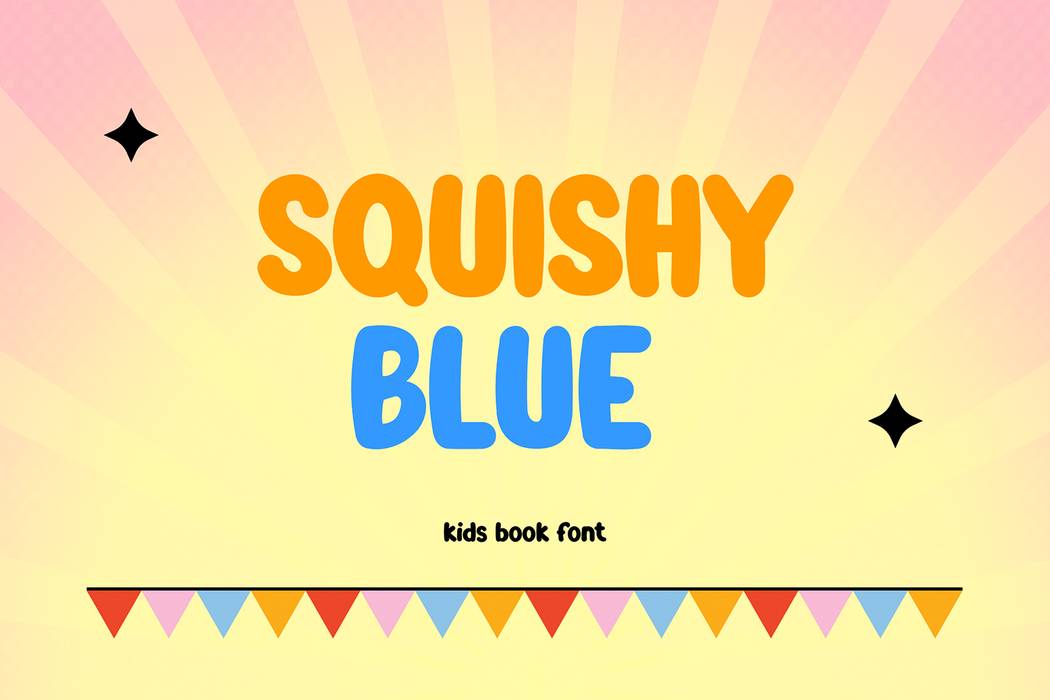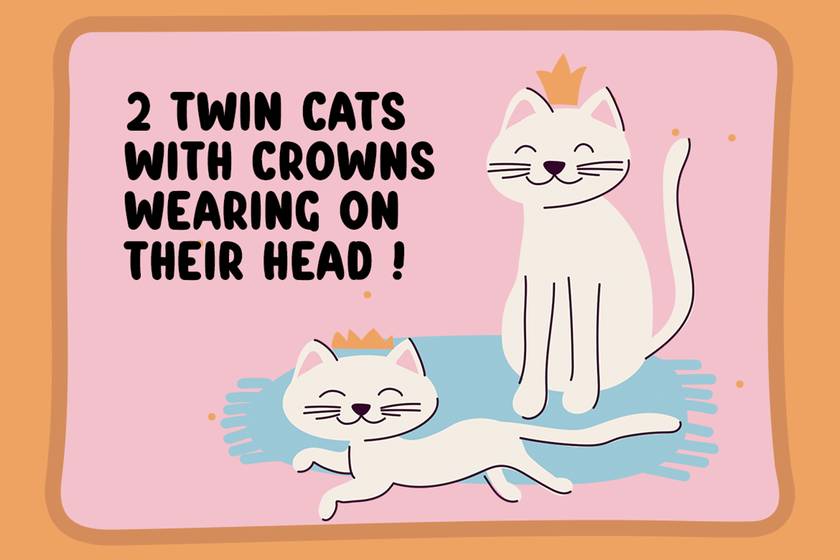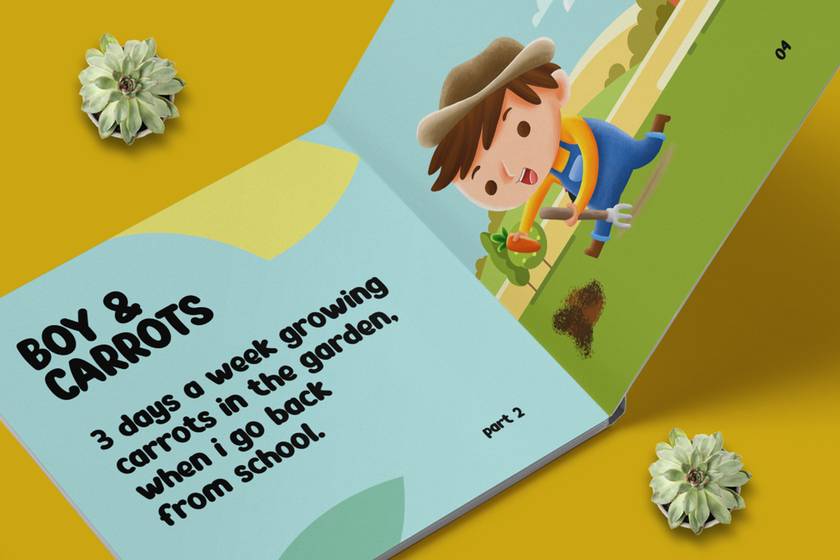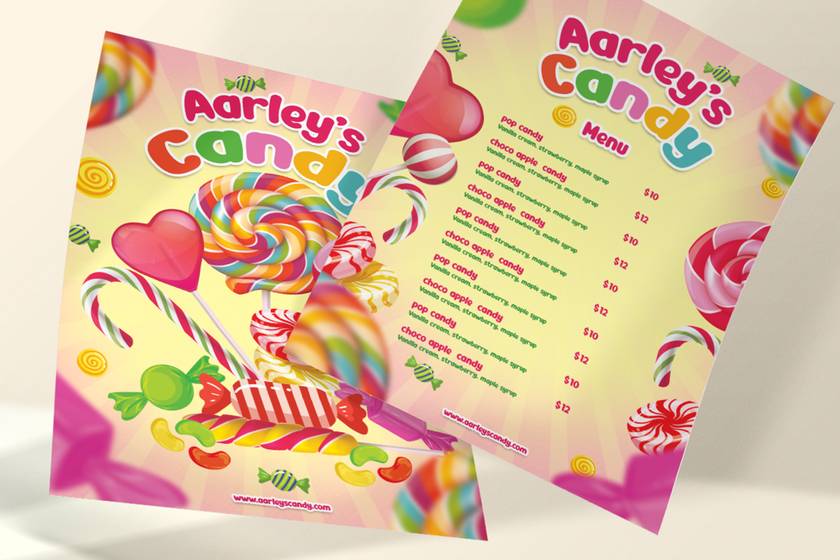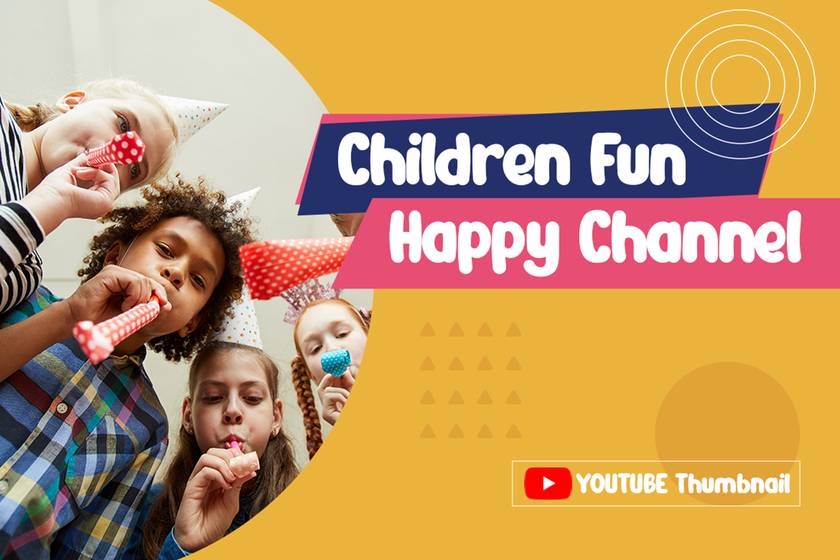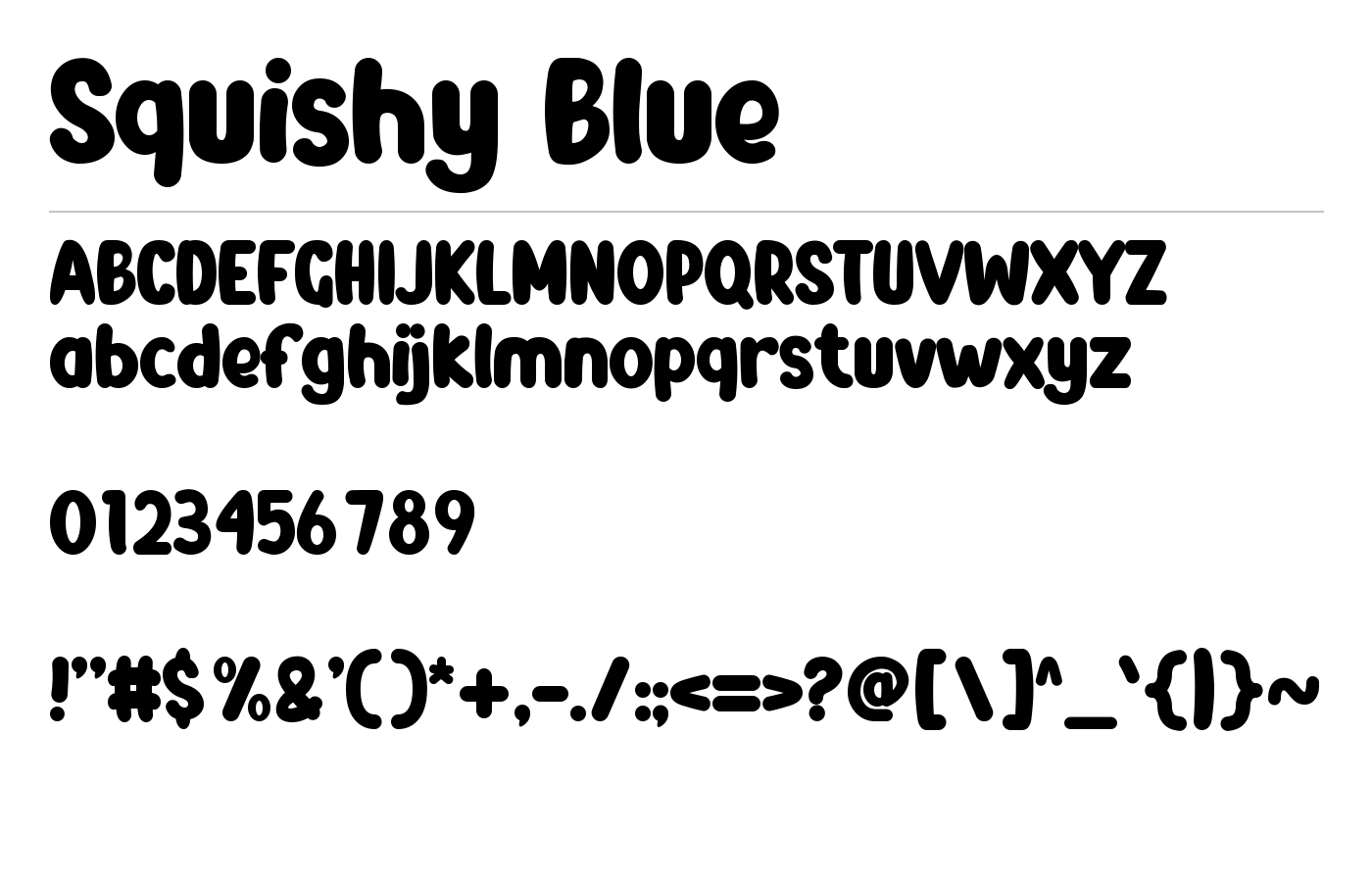
Squishy Blue is a playful and bold sans-serif font with a rounded, soft appearance that feels approachable and fun. Its thick, uniform strokes and slightly condensed letterforms give it a friendly and casual vibe, making it perfect for children's products, informal branding, and creative projects. This font works well in headlines, logos, and any design that aims to convey warmth and cheerfulness.
Squishy Blue Font
About Squishy Blue Font
| Font family | Squishy Blue Font |
| Release date | 2022-05-06 |
| Designer | PINISIART Team |